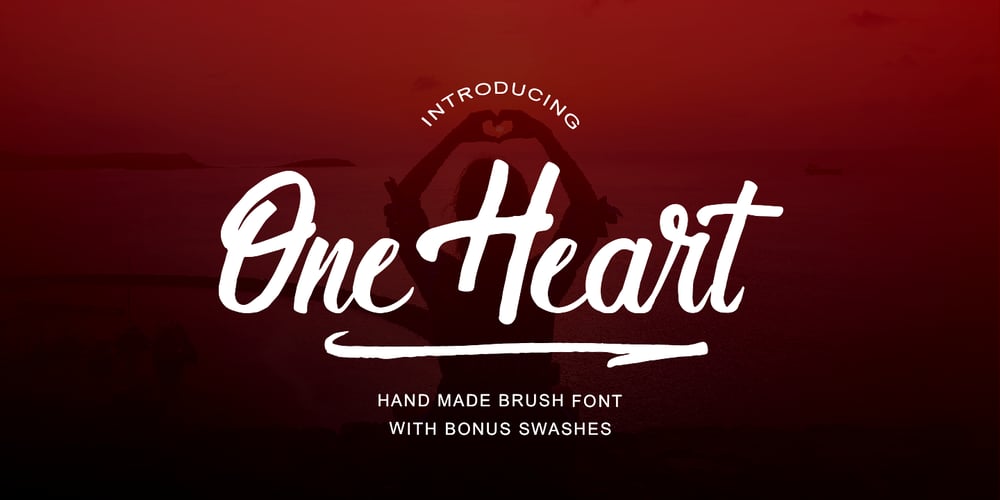
One Heart Font Family was designed by Iqbal Amsar Hidayat and published by Bal Studio. One Heart contains 2 styles and family package options. IntroducingOne Heart is a handwritten font, using a brush and ink effects that combine calligraphic brush styles, irregular base lines, rough edges, thick and organic movements. One Heart Script includes 242 characters, ligatures as well as multi-language support. One Heart can be used for various purposes such as posters, logos, t-shirts, signage, business cards, magazines, book covers, wedding invitations, greeting cards,brand projects, product packaging, invitations, news, blogs, everything including personal charm ,etc.Files included:~One Heart ( otf )~One Heart ( ttf )~One Heart Swash ( otf )~One Heart Swash ( ttf )To enable OpenType Stylistic Ligatures, you need a program that supports the OpenType feature. such as Adobe Illustrator CS, Adobe Indesign & CorelDraw X6-X7.How to get access ligatures glyphs from open type fonts : http://youtu.be/iptSFA7feQ0 One Heart is coded with PUA Unicode, which allows full access to all the extra characters without having special designing software. You can use the Character Map to view and copy any of the extra characters to paste into your favourite text editor/app. Using Character Map (Windows), Nexus Font (Windows), Font Book (Mac) or a software program such as PopChar (for Windows and Mac).How to access all alternative characters, using Windows Character Map with Photoshop : https://www.youtube.com/watch?v=Go9vacoYmBw Thanks so much for looking and please let me know if you have any questions.